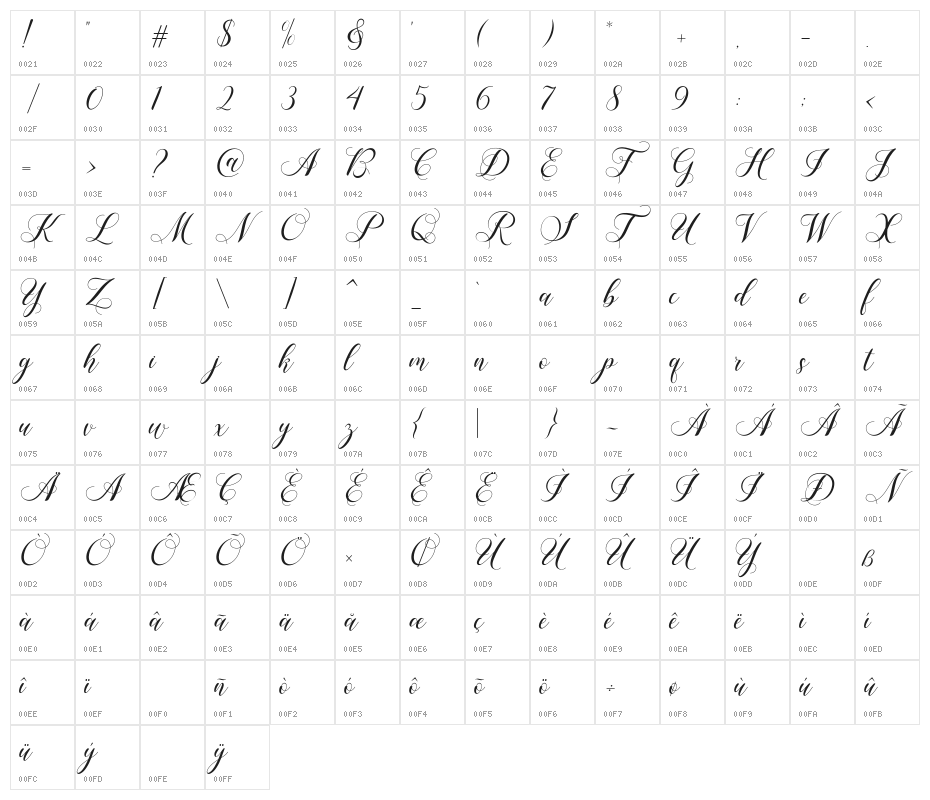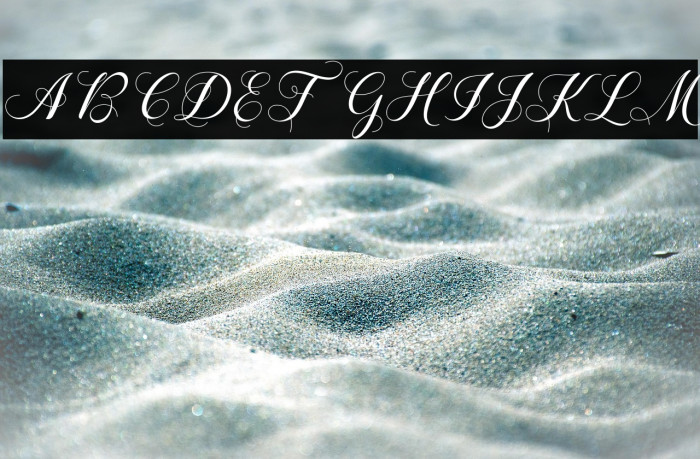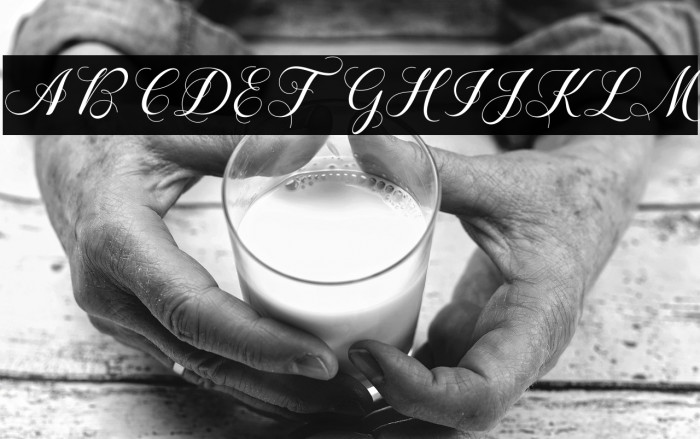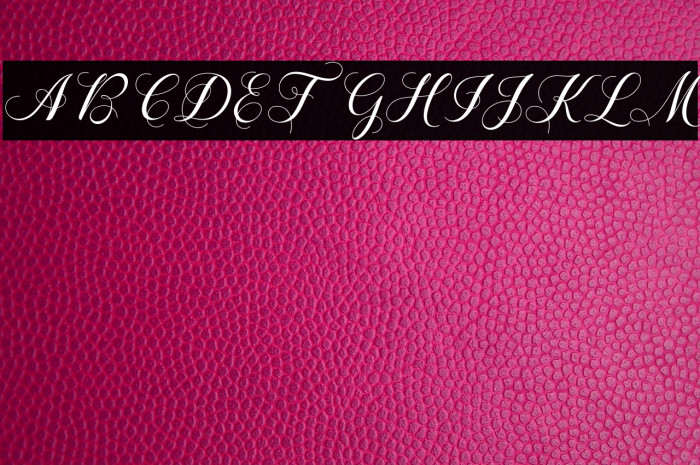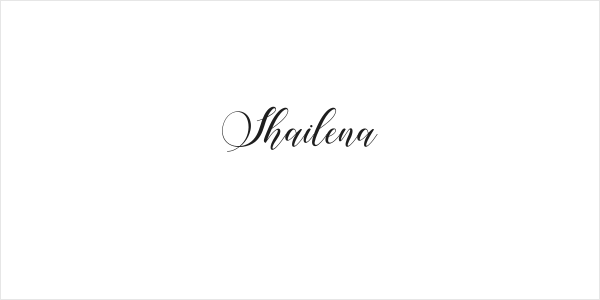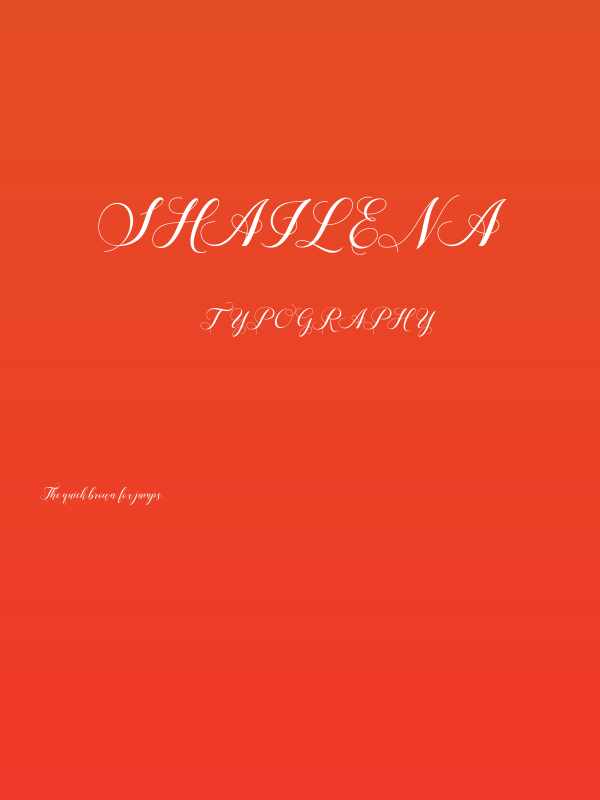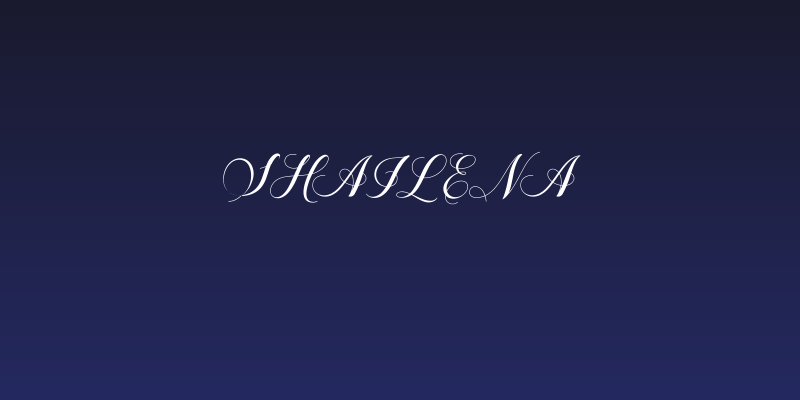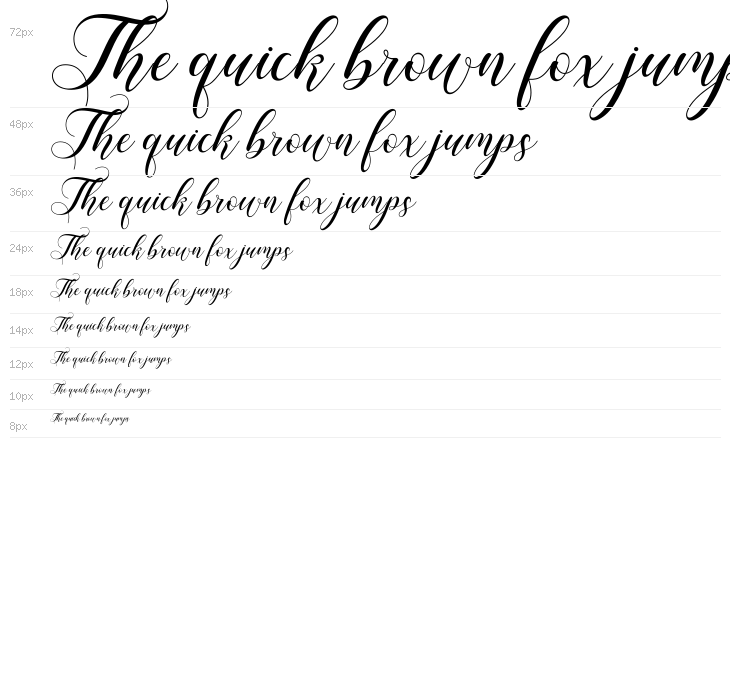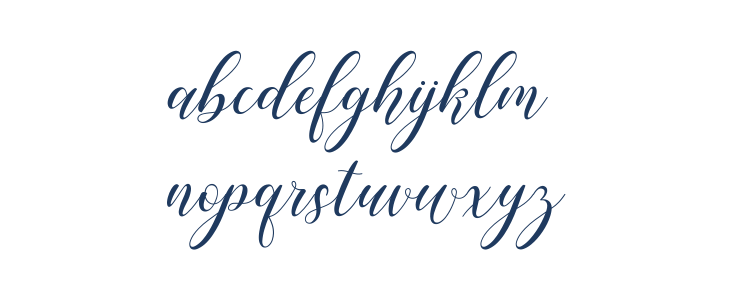
Shailena Font
Shailena Description
This elegant script font features flowing, cursive letterforms with intricate swashes and flourishes, creating a sophisticated and graceful appearance. The uppercase letters are particularly ornate, with extended loops and curves that add a touch of luxury and refinement. The lowercase letters maintain a consistent flow, enhancing readability while retaining the decorative style. The numerals are stylish and align well with the overall aesthetic, making them suitable for formal invitations or branding. The special characters complement the font's design, ensuring a cohesive look across various uses.
| Use Case | Invitations, Branding, Decorative headlines |
| Proposed Projects | Ideal for wedding invitations, luxury branding, elegant stationery, and decorative headlines. |